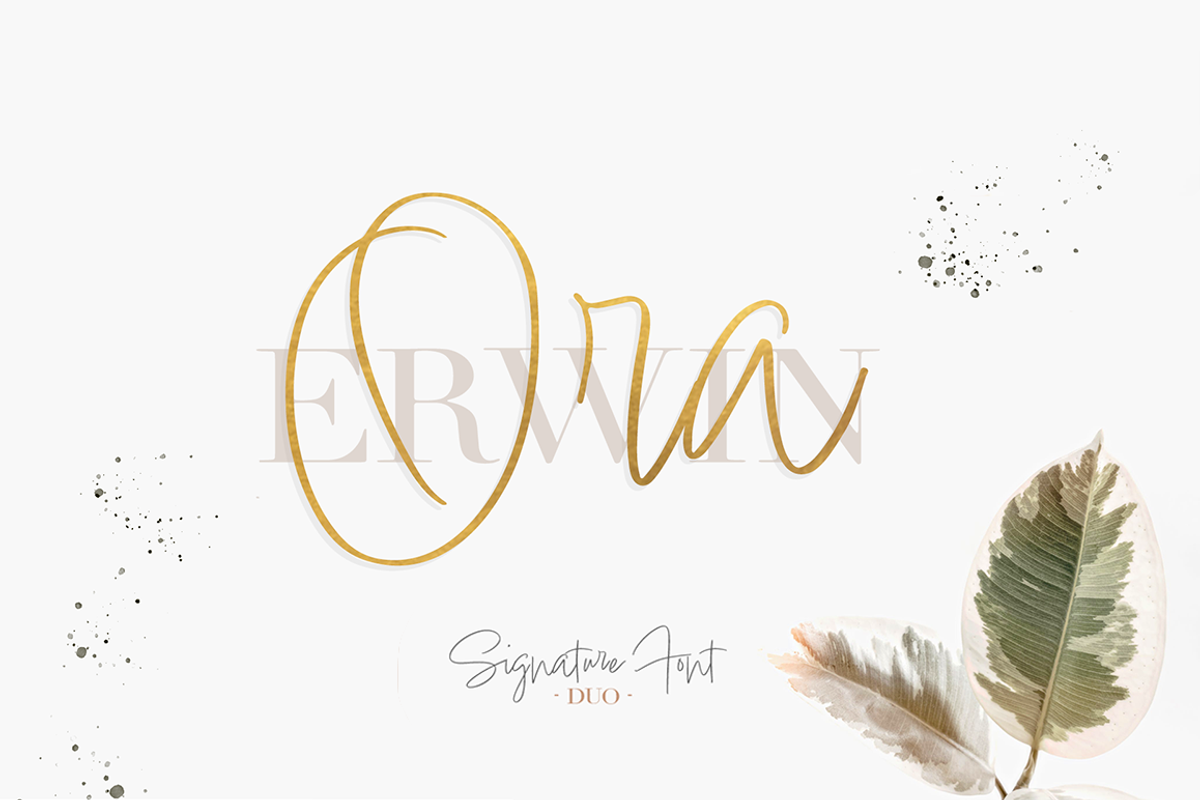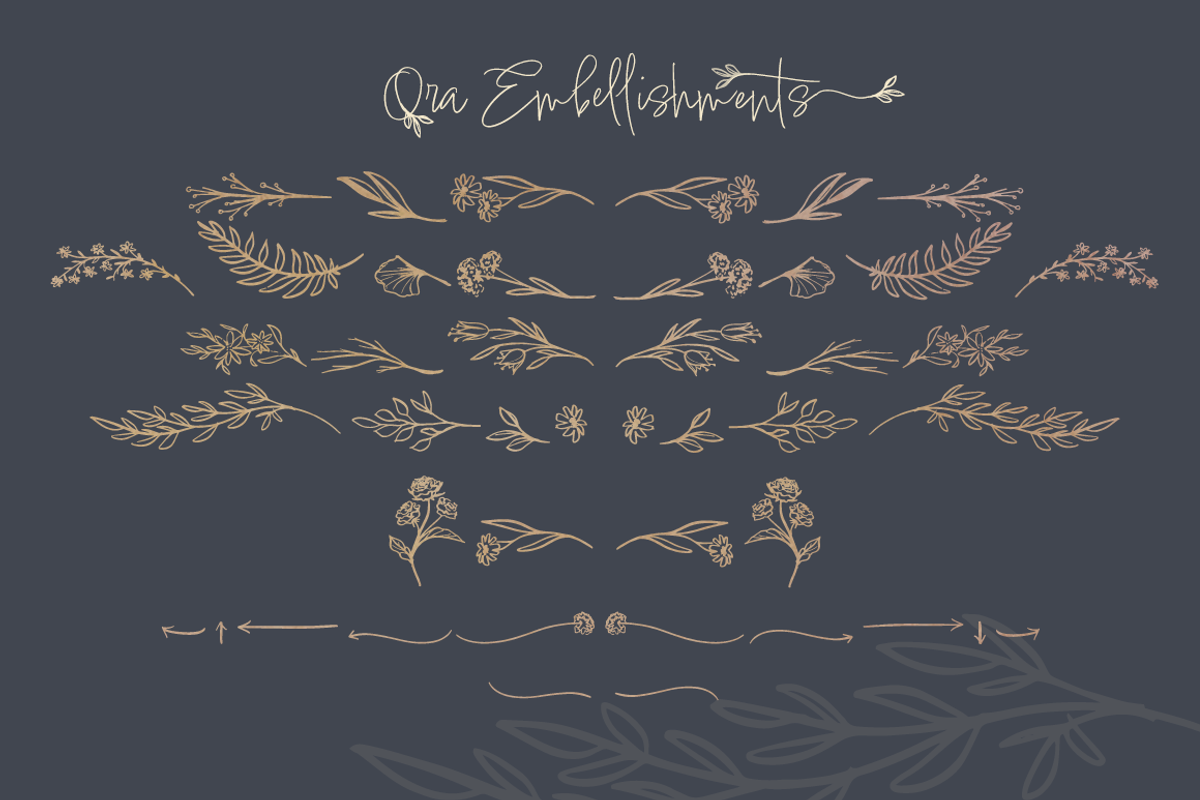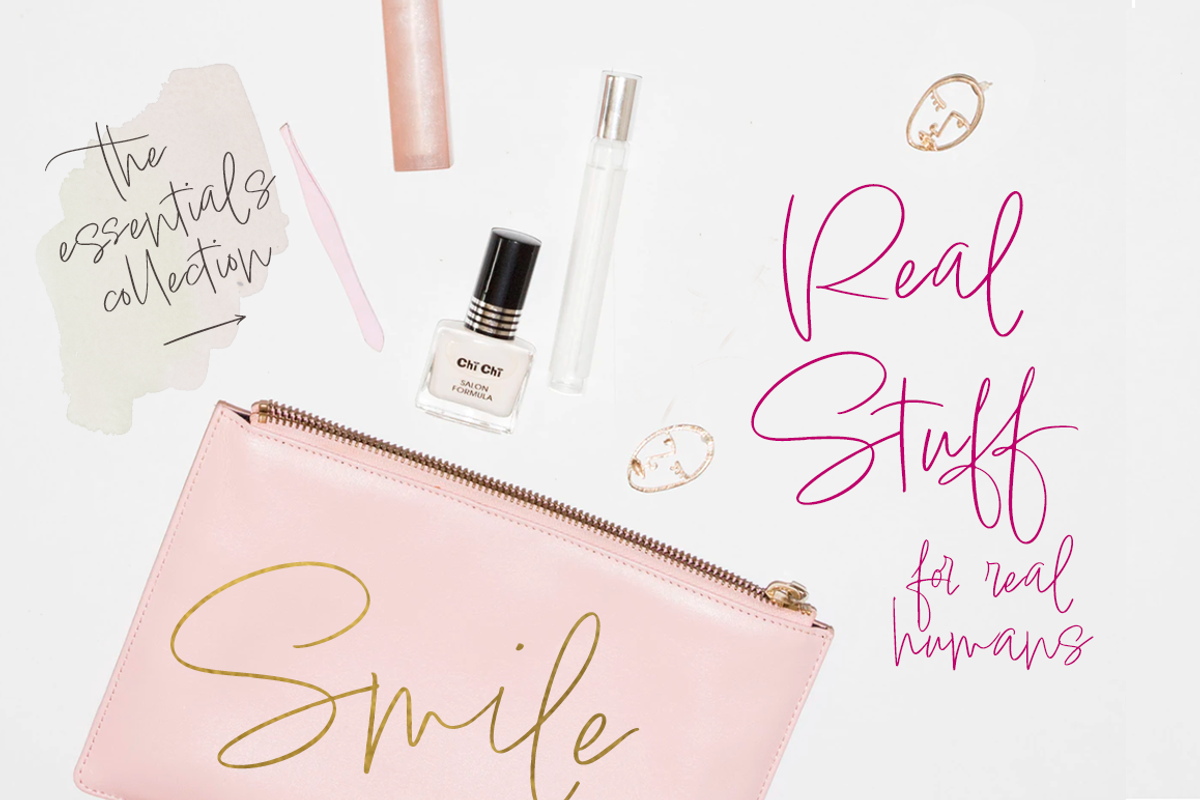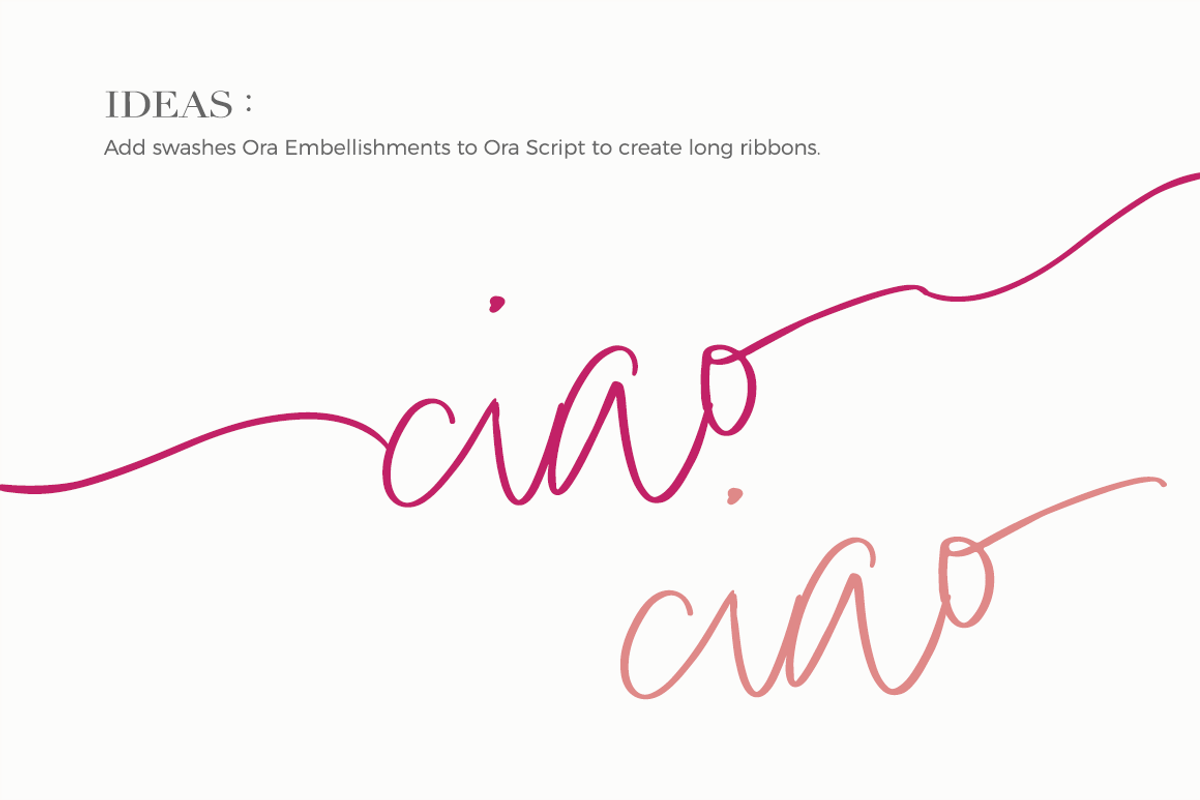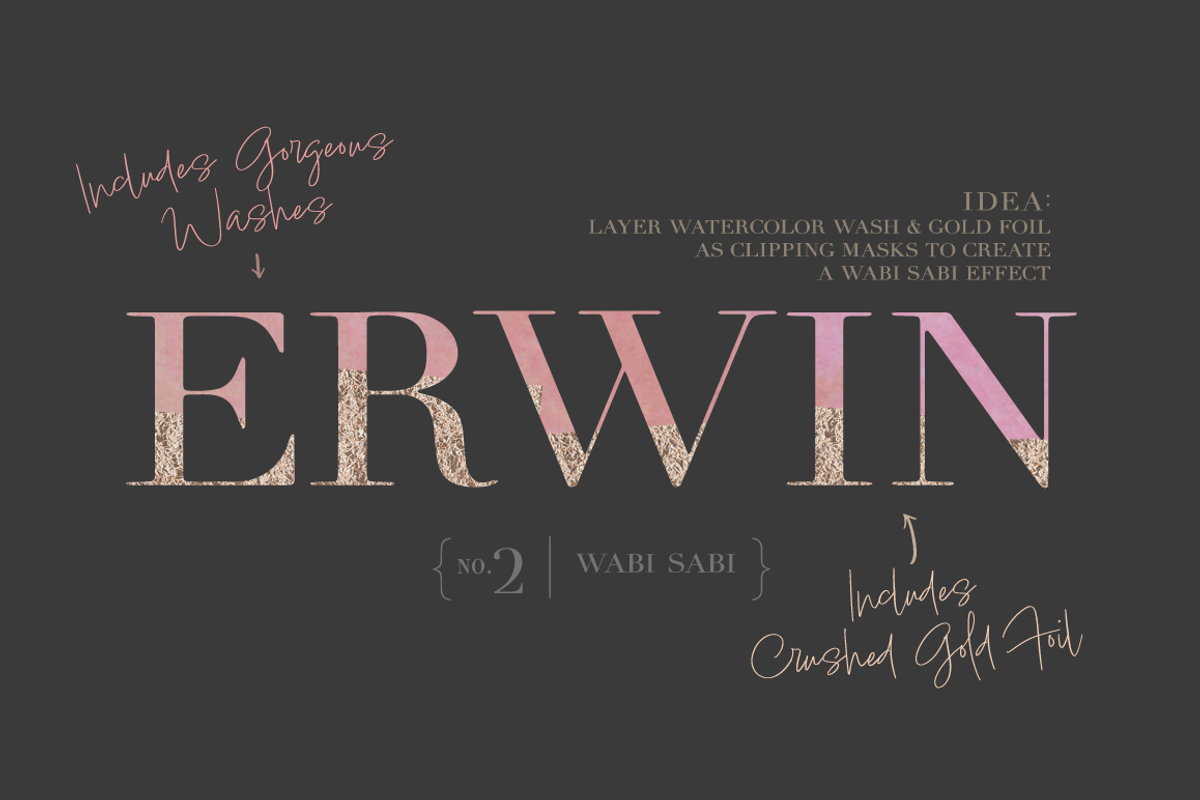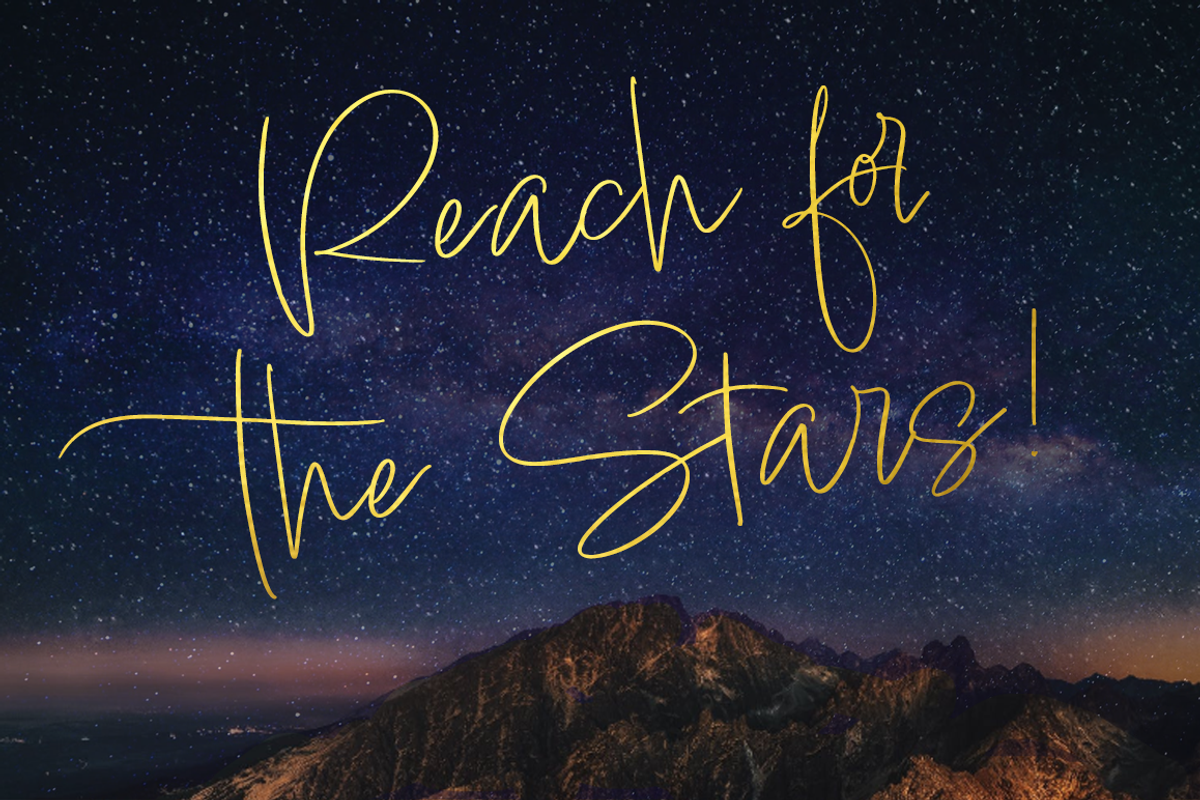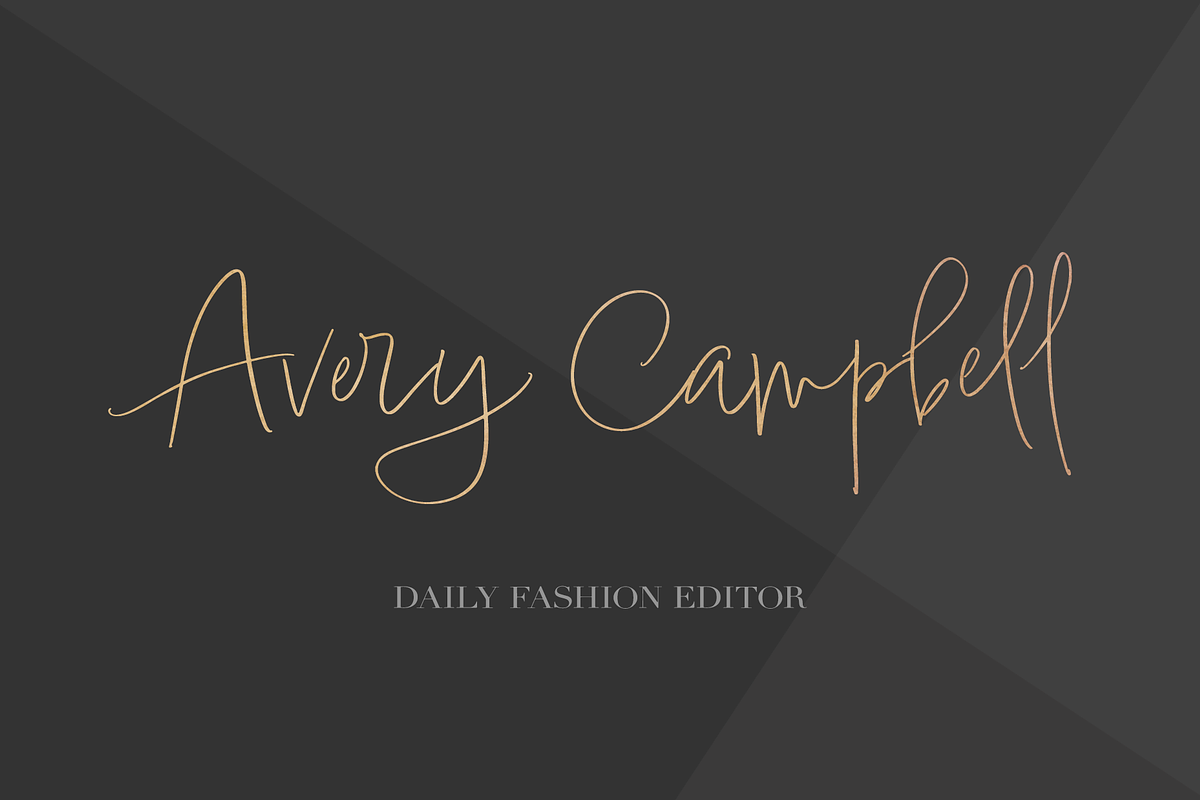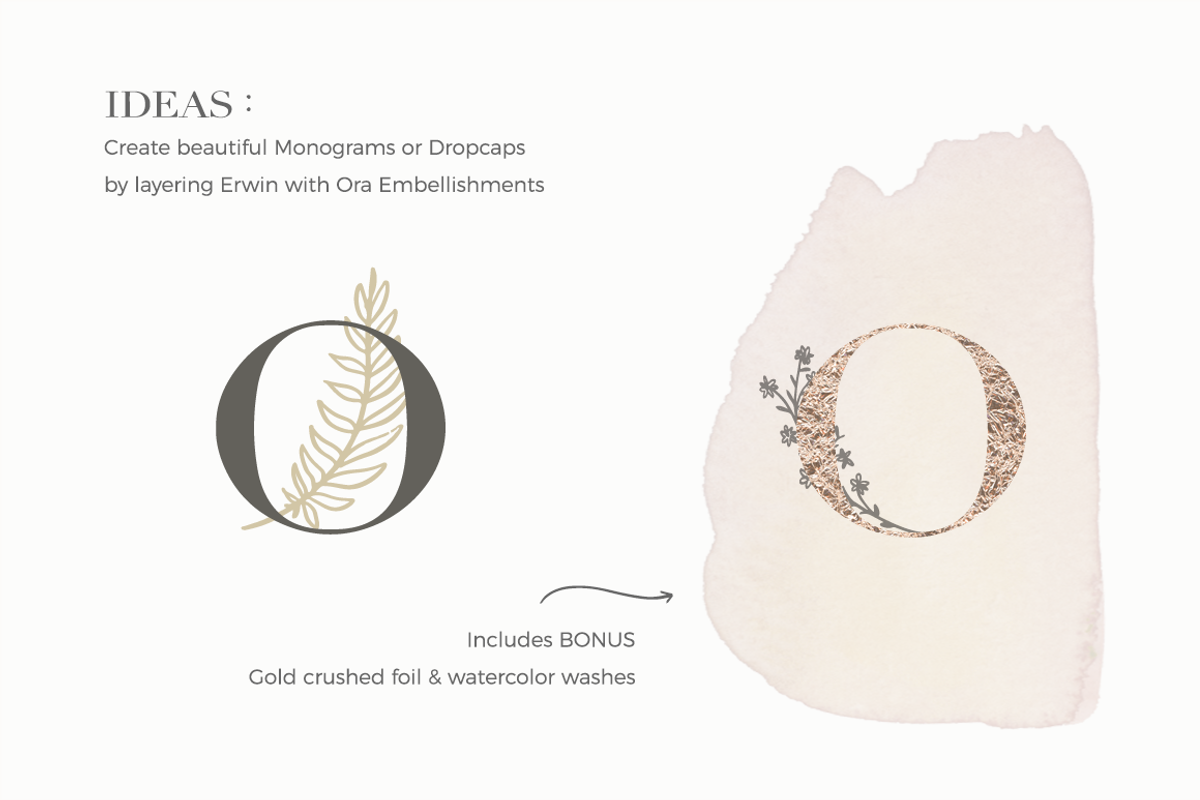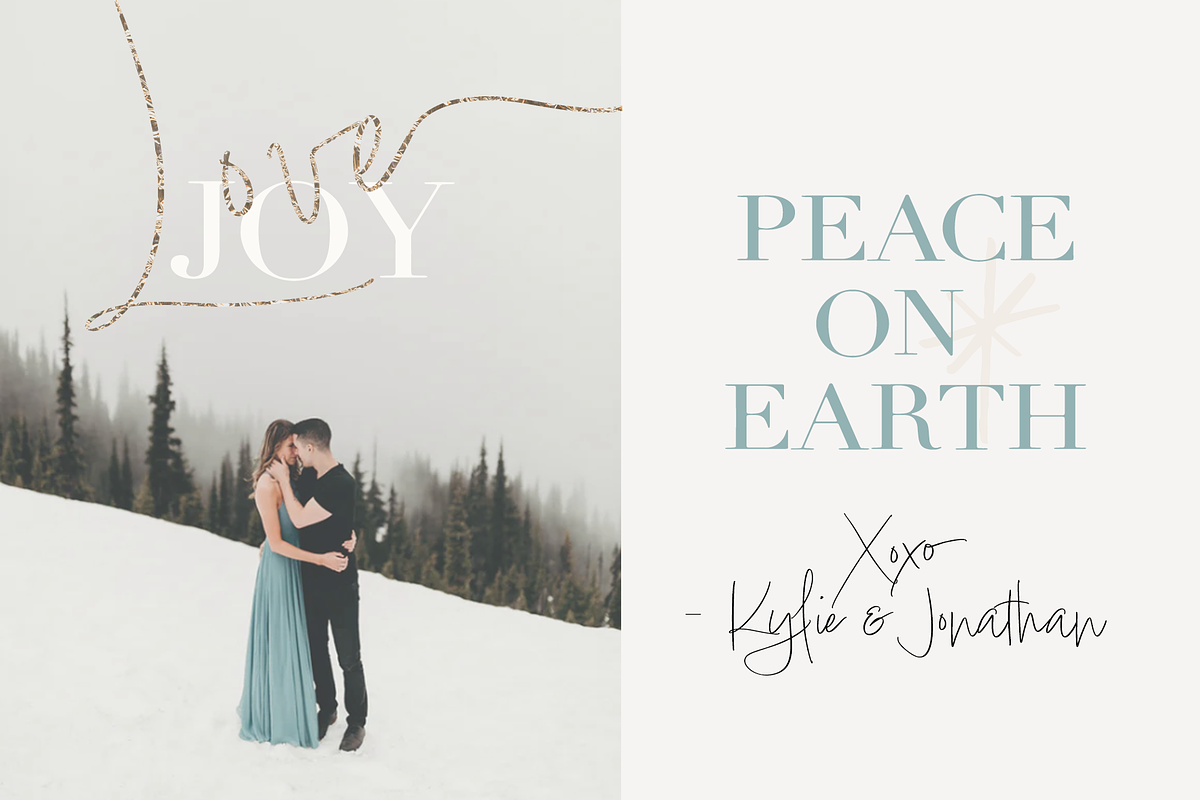
Ora Erwin : Signature Font Duo
Ora Erwin is a signature style font duo designed for logos & branding or editorial spreads. It's a perfect relationship balancing dynamic energy and beautiful order.
Ora is a free spirited handwritten script with a full collection of alternates & ligatures to customize her appearance and replicate natural handwriting. Erwin is a classic fashion-worthy serif font which speaks loudly, no lowercase required.
Additionally included is Ora Embellishments. A dingbat font with swashes, arrows and hand drawn floral details to accentuate your designs. These line drawings work beautifully for monograms and logos and pattern designs.